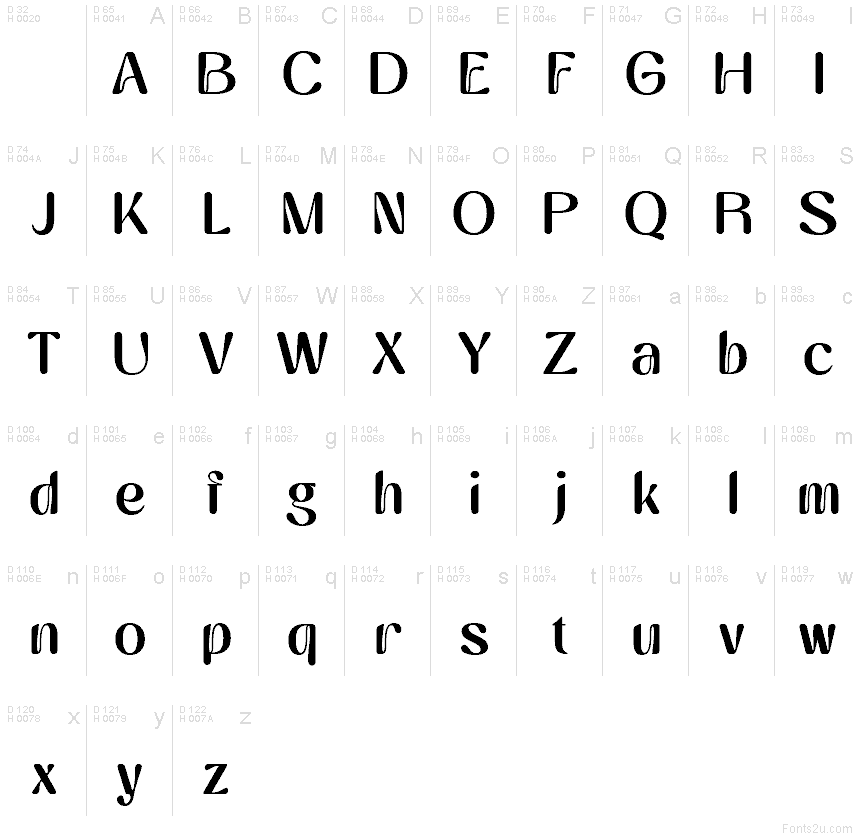
MulinarRounded-Regular Demo
Mulinar Rounded font by Craft Supply Co. is an elegant modern display font with geometric influences and a clean aesthetic soft look. Designed for contemporary branding, Mulinar has four weights; thin, regular, bold, and extra bold. Visual updates are evident in the weight adjustments and the increased curve radius.
Mulinar Rounded Demo